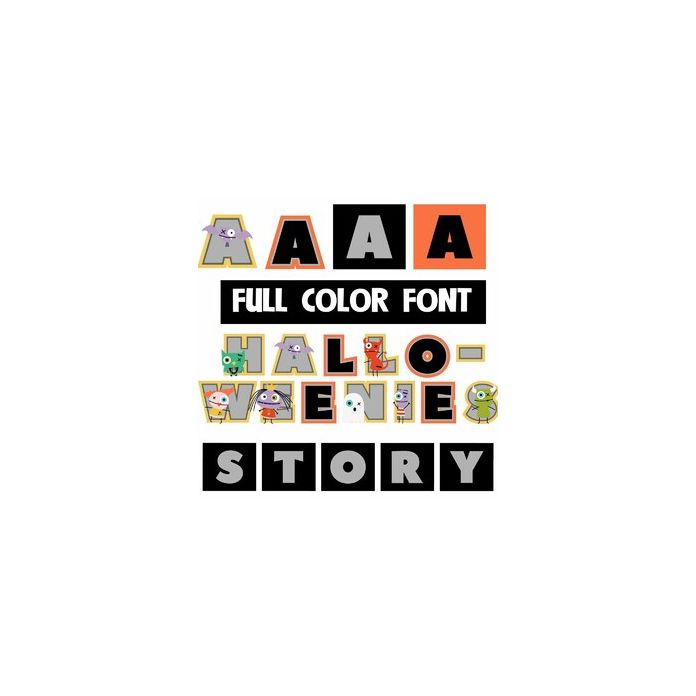
This full-color font features monsters throughout. There is a full upper and lowercase second set available through Silhouette's or your system's glyph map.